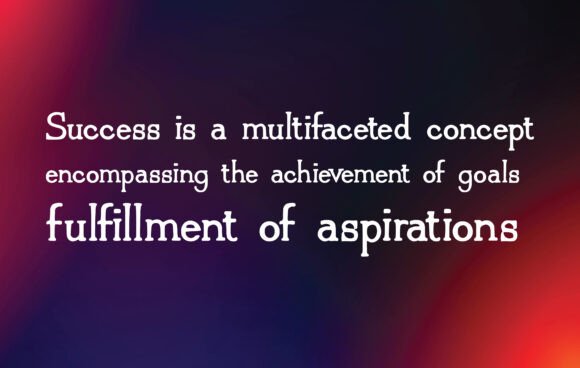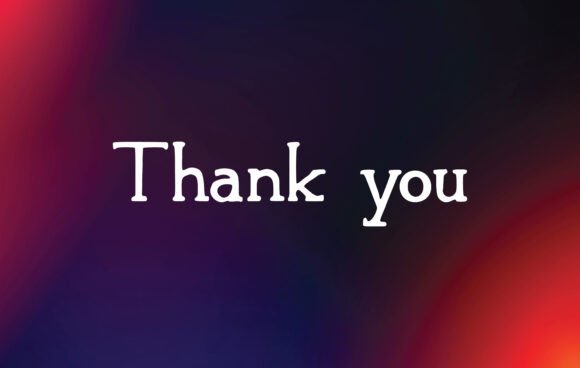
Alejandra Font: Elevate Your Creative Projects with this Lovely Handwritten Font
Are you a designer, crafty person, or someone who loves to express themselves through creative projects? Look no further! Introducing Alejandra Font, a beautiful handwritten font that can take your ideas to new heights. In this article, we’ll explore the features and benefits of Alejandra Font, and why it’s the perfect choice for your next project.
What is Alejandra Font?
Alejandra Font is a lovely and beautiful handwritten font designed to add a personal touch to your creative projects. Its unique and elegant style makes it perfect for a wide range of applications, from logos and branding to quotes and social media graphics. With Alejandra Font, you can add a touch of sophistication and whimsy to your designs, making them stand out from the crowd.
Features of Alejandra Font
Alejandra Font has several features that make it an excellent choice for designers and crafters:
- Handwritten style: Alejandra Font has a beautiful, handwritten style that adds a personal touch to your designs.
- Elegant and sophisticated: The font’s elegant and sophisticated style makes it perfect for high-end branding and designs.
- Versatile: Alejandra Font can be used for a wide range of projects, from logos and branding to quotes and social media graphics.
- Easy to read: The font is easy to read, making it perfect for body text and captions.
Benefits of Using Alejandra Font
Using Alejandra Font in your creative projects can have several benefits:
- Stand out from the crowd: Alejandra Font’s unique style will help your designs stand out from the crowd and grab attention.
- Add a personal touch: The font’s handwritten style adds a personal touch to your designs, making them more relatable and engaging.
- Enhance your brand: Alejandra Font can help you create a consistent brand image, making your designs more recognizable and memorable.
- Save time: With Alejandra Font, you can create professional-looking designs in no time, saving you time and effort.
Why Choose Alejandra Font?
So, why choose Alejandra Font over other fonts? Here are a few reasons:
- Unique style: Alejandra Font has a unique style that sets it apart from other fonts.
- High-quality design: The font is designed with high-quality and precision, ensuring it looks great in any size or resolution.